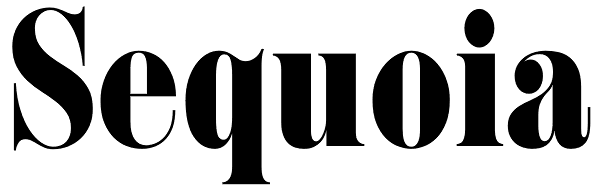
Sequoia
A great looking twist on Bodoni. Its high contrast and condensed look make a great headline face. Sequoia comes in 2 widths Sequoia Regular and Sequoia Condensed. Both fonts are included in the font package allowing you to chose the proportion you...
Sequoia Condensed
Sequoia